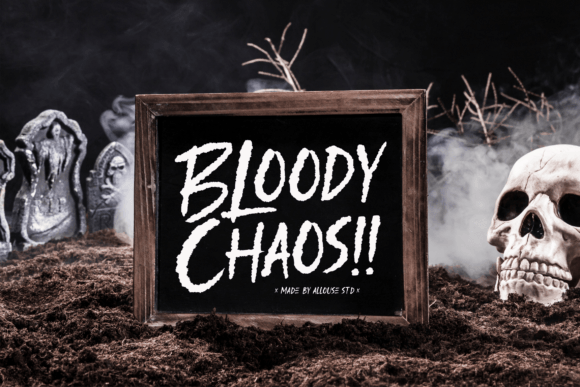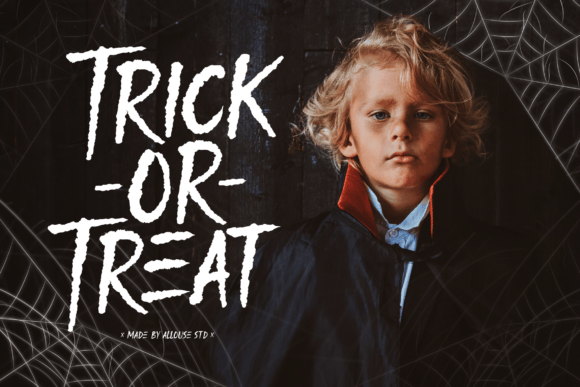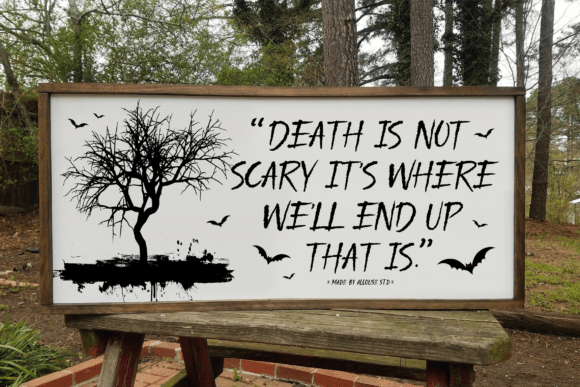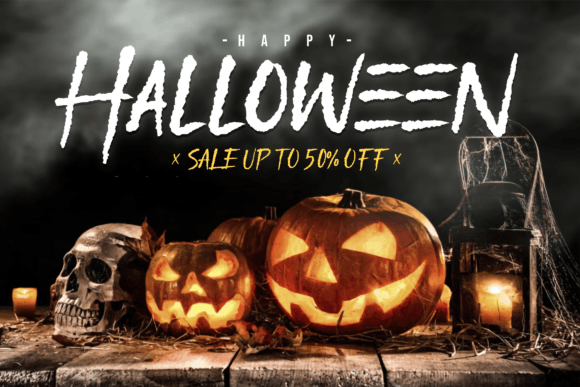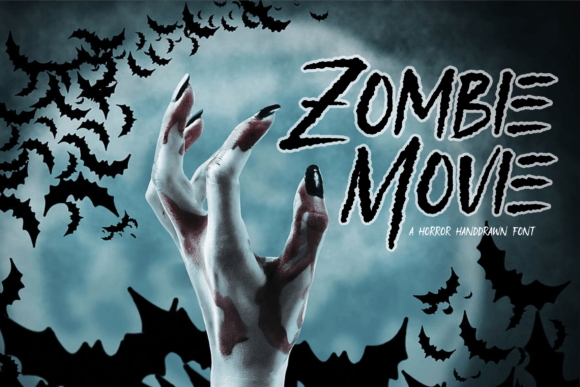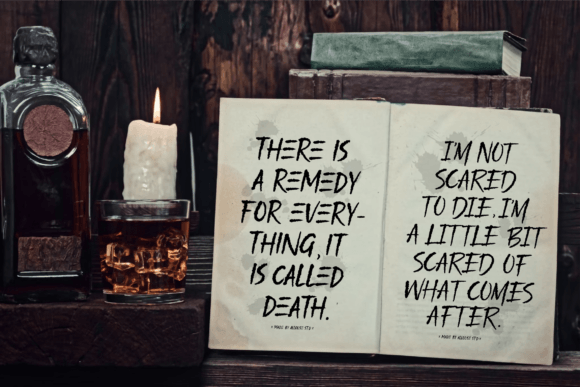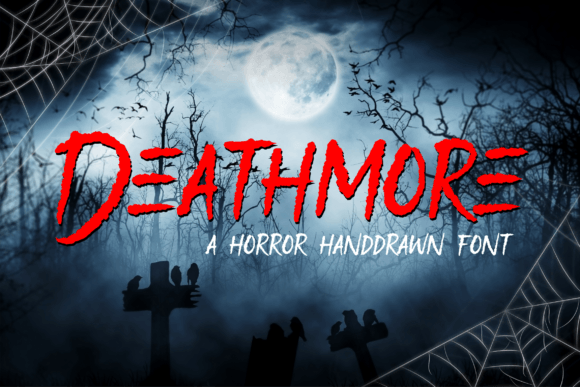
Deathmore Font: The Ultimate Horror Display Font for Designers and Crafters
Are you a designer or crafter looking for a unique and eye-catching font to add a touch of horror and elegance to your projects? Look no further than Deathmore Font, a horror display font that is perfect for a wide range of applications, from product packaging and branding projects to magazines, social media, weddings, and more.
What is Deathmore Font?
Deathmore Font is a carefully crafted horror display font that is designed to evoke a sense of eeriness and sophistication. With its bold and striking letterforms, Deathmore Font is sure to make a statement in any project. Whether you’re looking to create a spooky atmosphere or simply want to add a touch of elegance to your design, Deathmore Font is the perfect choice.
Key Features of Deathmore Font
• Unique and Eye-Catching Design: Deathmore Font features a unique and eye-catching design that is sure to grab attention.
• Perfect for Horror and Elegance: With its bold and striking letterforms, Deathmore Font is perfect for creating a spooky atmosphere or adding a touch of elegance to your design.
• Wide Range of Applications: Deathmore Font is perfect for a wide range of applications, from product packaging and branding projects to magazines, social media, weddings, and more.
• Easily Customizable: Deathmore Font is easily customizable, allowing you to adjust the font to suit your needs.
Uses of Deathmore Font
Deathmore Font is a versatile font that can be used in a wide range of applications, including:
• Product Packaging: Use Deathmore Font to create eye-catching product packaging that stands out on store shelves.
• Branding Projects: Use Deathmore Font to create a unique and memorable brand identity.
• Magazines and Editorial Design: Use Deathmore Font to add a touch of horror and elegance to your magazine or editorial design.
• Social Media: Use Deathmore Font to create eye-catching social media graphics that grab attention.
• Weddings and Events: Use Deathmore Font to create unique and memorable wedding and event invitations.
Why Choose Deathmore Font?
There are many reasons why Deathmore Font is the perfect choice for designers and crafters. Here are just a few:
• Unique Design: Deathmore Font features a unique and eye-catching design that is sure to grab attention.
• High-Quality: Deathmore Font is a high-quality font that is designed to produce crisp and clear results.
• Easily Customizable: Deathmore Font is easily customizable, allowing you to adjust the font to suit your needs.
Tips for Using Deathmore Font
Here are a few tips for using Deathmore Font:
• Use it Sparingly: Use Deathmore Font sparingly to create a greater impact.
• Pair it with Other Fonts: Pair Deathmore Font with other fonts to create a unique and interesting contrast.
• Experiment with Colors: Experiment with different colors to find the perfect combination for your design.
Deathmore Font is a unique and eye-catching horror display font that is perfect for designers and crafters. With its bold and striking letterforms, Deathmore Font is sure to make a statement in any project. Whether you’re looking to create a spooky atmosphere or simply want to add a touch of elegance to your design, Deathmore Font is the perfect choice.